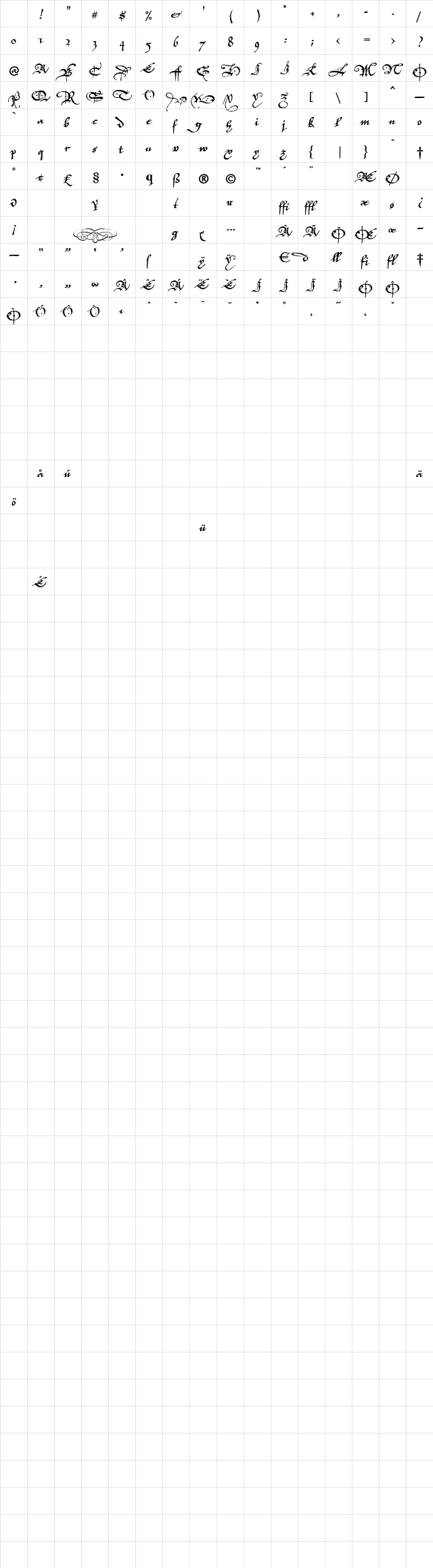
Complete P22Elizabethan Regular glyph index. Displaying only characters natively supported by P22Elizabethan Regular font.
P22Elizabethan is a composed and adaptable typeface that performs quietly and consistently across a wide range of design contexts.